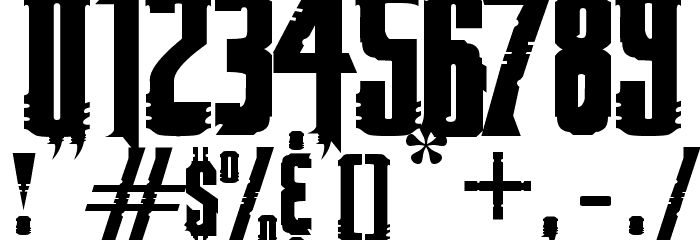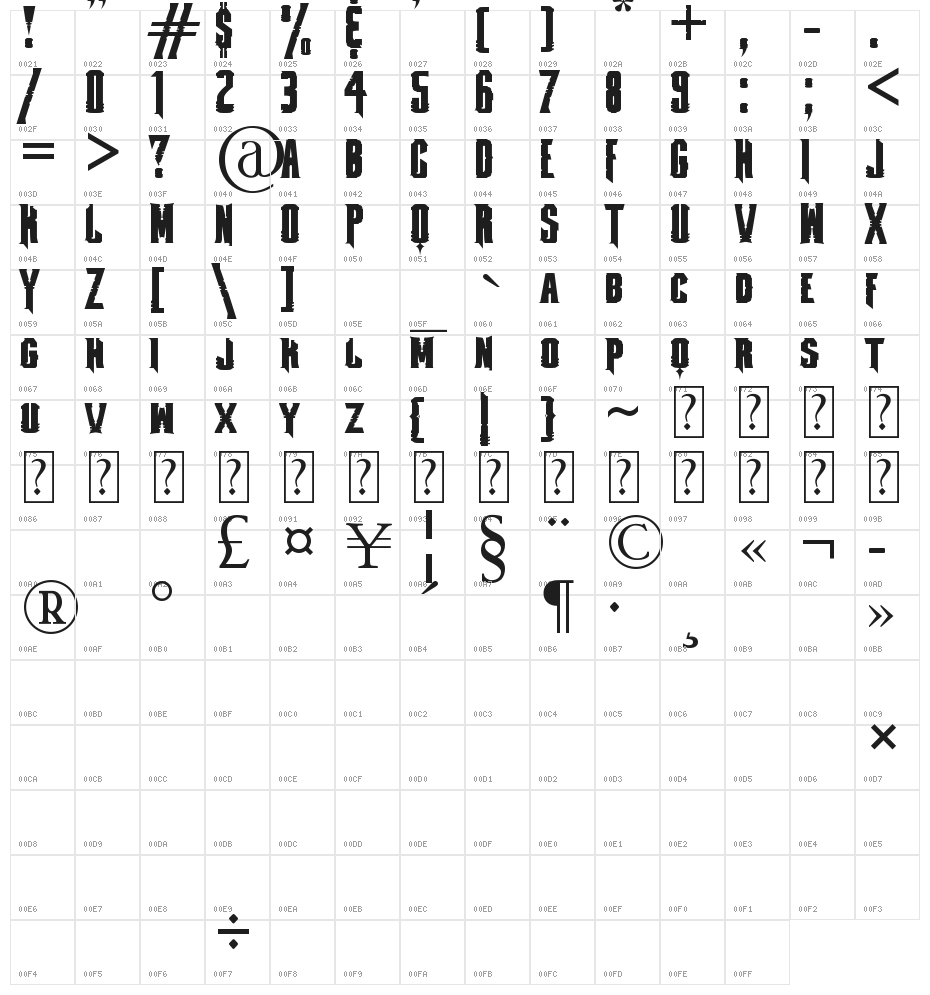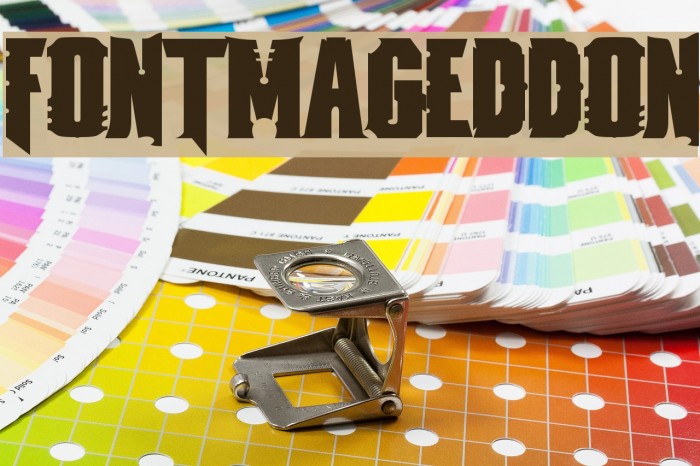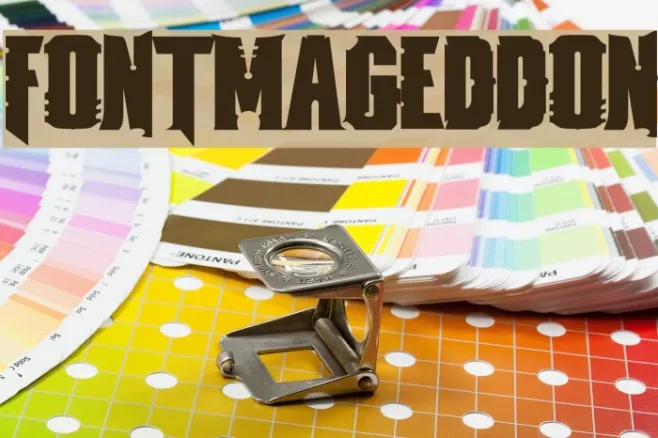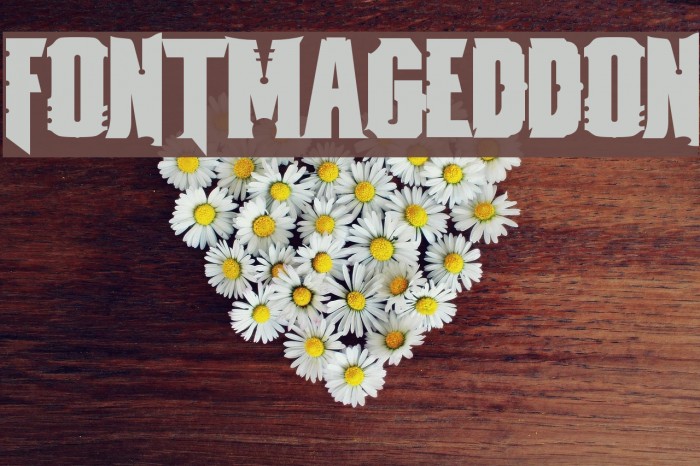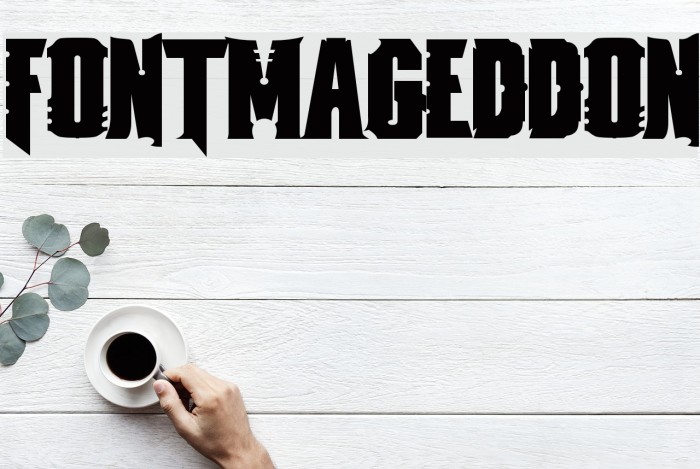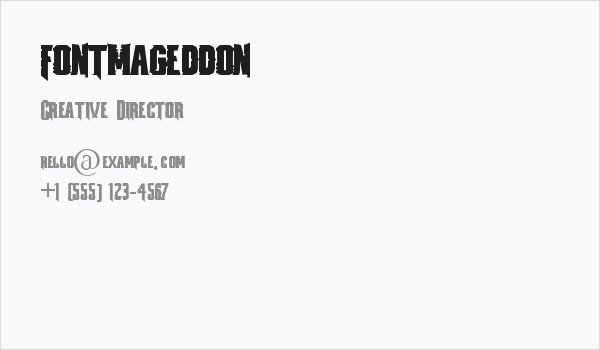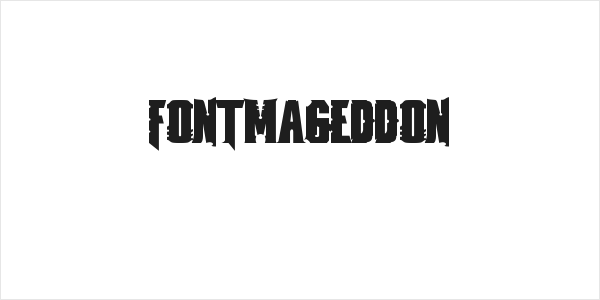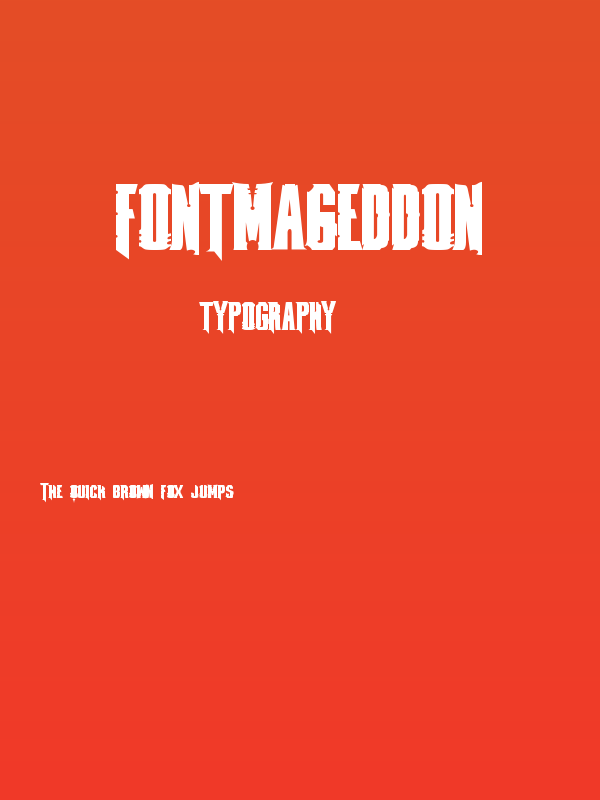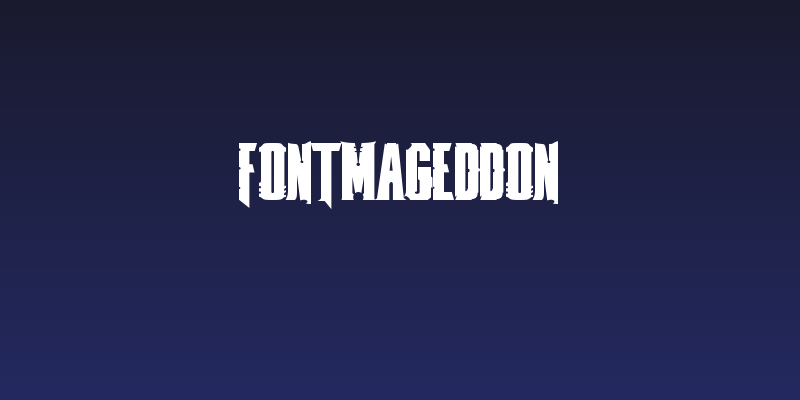
fontmageddon Font
fontmageddon Description
This font features a bold, aggressive style with sharp, jagged edges and a distressed appearance, reminiscent of a horror or heavy metal aesthetic. The uppercase and lowercase letters maintain a consistent height, creating a uniform look. The numbers and special characters follow the same rugged design, adding to the overall cohesive feel. The font's unique style is characterized by its high contrast between thick and thin strokes, giving it a dynamic and eye-catching appearance. The spacing between characters is tight, enhancing its compact and impactful look.
| Use Case | Logos, Headlines |
| Proposed Projects | Ideal for horror movie posters, heavy metal band logos, Halloween event flyers, and video game titles. |